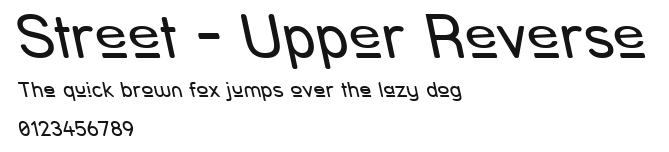
• Font Name: Street - Upper Reverse
• Full Font Name: Street - Upper Reverse Italic
• Designer: Graham Meade
About Street - Upper Reverse.ttf
Street - Upper Reverse.ttf is a modern, elegant sans-serif font designed for ultimate readability and visual harmony. Perfect for branding, headlines, web design, and print materials.